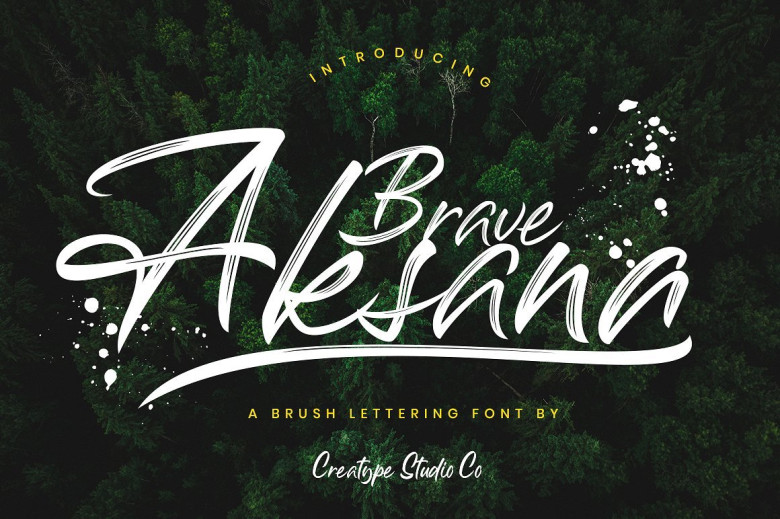
Aksana Brush Font
A brush lettering font by Creatype Studio Co.. Introducing Aksana Font. It is a modern brush script with handwritten style with a personal charm and it’s looks stylish and elegant. Aksana is perfect for branding projects, wedding designs, social media posts, advertisements, product packaging, product designs, label, photography, watermark, invitation, stationery and any projects that need handwriting taste.